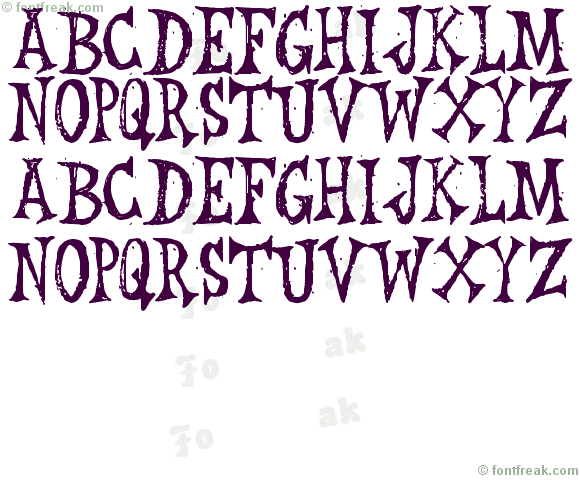
Leichenhaus
About Leichenhaus
Leichenhaus, crafted by Rubber Wolf Graphics in 2006, is a striking display font that embodies a unique blend of decorative flair and bold character. This freeware typeface stands out with its distinct, jagged edges and pronounced stroke weight, which give it an edgy, almost gothic appearance. The high contrast between thick and thin lines creates a dramatic visual impact, making it an ideal choice for projects that require attention-grabbing typography. The spacing is tight yet balanced, contributing to its overall striking presence while ensuring legibility.
This font is particularly well-suited for a variety of creative applications. It can bring an eerie charm to Halloween-themed invitations or posters, making it perfect for events that embrace the spooky season. Additionally, Leichenhaus can be an excellent choice for movie posters, especially in the horror or thriller genres, where its bold lettering can evoke a sense of tension and intrigue. Graphic designers may also find it useful for album covers, particularly in rock or alternative music, where a rebellious aesthetic is desired. Furthermore, the font can add a unique touch to restaurant menus that aim for a quirky, offbeat vibe, enticing patrons with its distinctive style.
Targeting graphic designers, small business owners, and content creators, Leichenhaus offers an avenue for those looking to make a bold statement in their designs. Its unique characteristics allow for creative expression while maintaining a professional feel. The Leichenhaus font free download provides an accessible option for anyone wanting to enhance their projects with a striking, artistic typeface. With its memorable design and versatile applications, Leichenhaus is sure to leave a lasting impression on your audience.